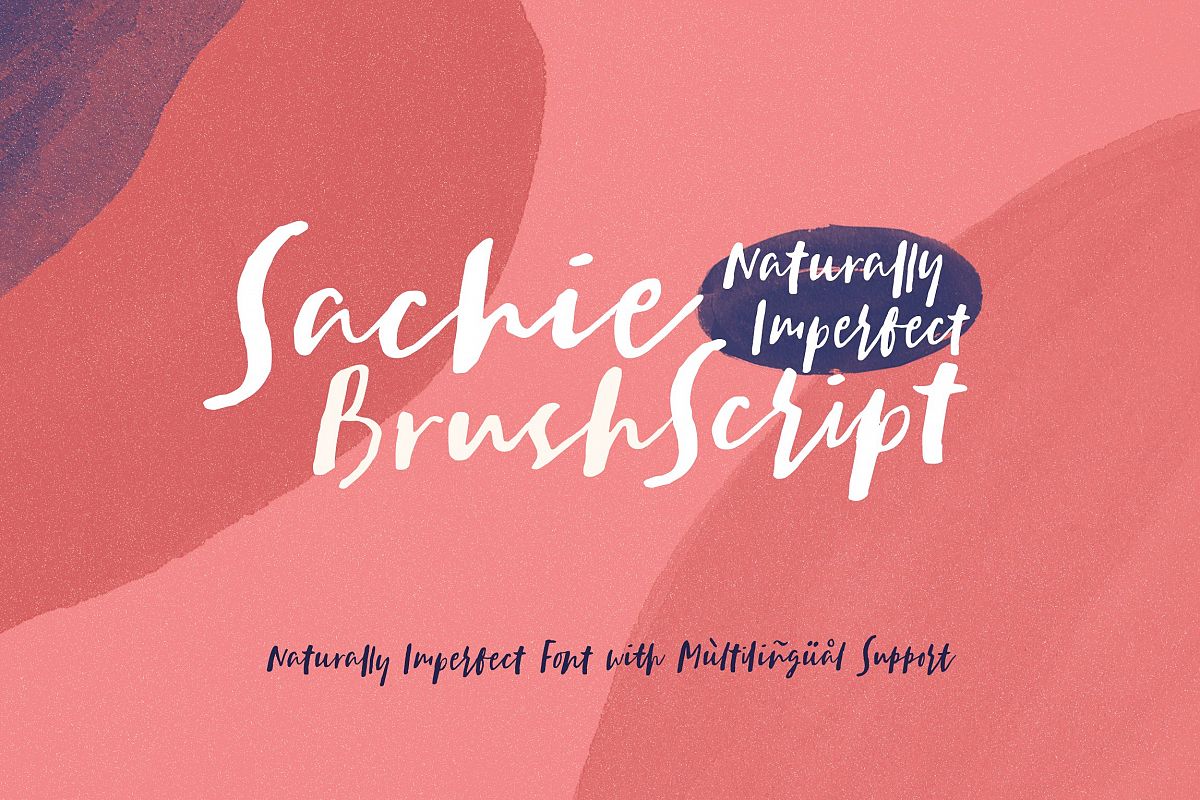
Sachie - Brush Script Font
Sachie Script
Thanks for checking out Sachie Script, an artsy handwritten font with a slightly blooming baseline and naturally imperfect characters, allowing you to create awesome handmade typography design. Ranging from Instagram posts and stories, t-shirt design, fun-yet packaging design and more.
Sachie Script comes with a complete set of lowercase alternates, numerals, a large range of punctuation ligatures and Special European Characters. The OpenType features can be accessed by using OpenType savvy programs such as Adobe Illustrator, Adobe InDesign, and Adobe Photoshop